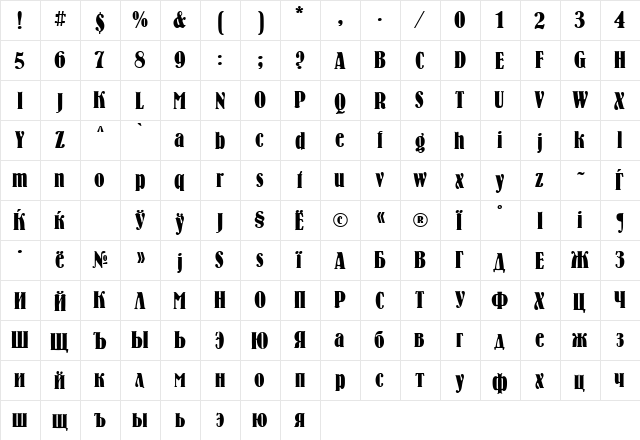
BernhardCTT Regular Font Preview
BernhardCTT Regular
Design Context for BernhardCTT Typeface
BernhardCTT offers clean, dependable letterforms without strong stylistic allegiance, making it a practical choice for designers who need flexibility.
Pro Tip: Pair BernhardCTT with a font of contrasting weight or personality to build a more expressive typographic hierarchy.